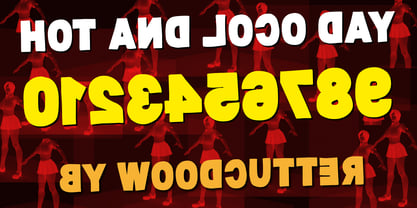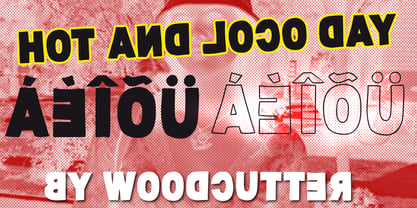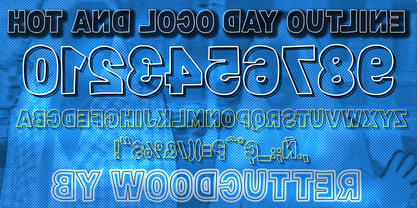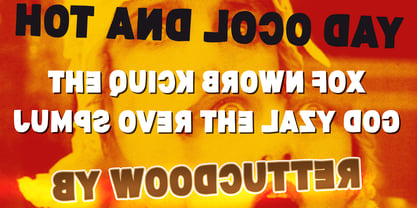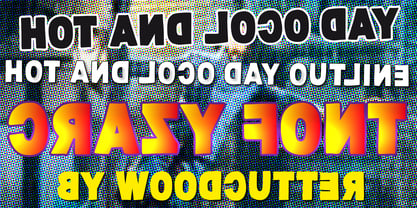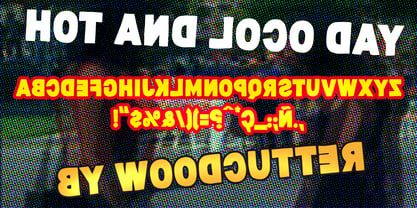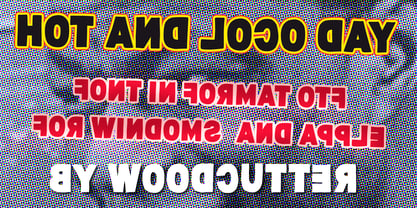
Hot And Loco Day
by Woodcutter
The Hot And Loco Day Font Family was designed by Jordi Manero and published by Woodcutter. Hot And Loco Day contains 2 styles and family package options. More about this family
"Hot And Loco Day" is an explosive, chaotic type family full of personality, designed to break every rule of order and conventional legibility. Made entirely of uppercase letters with accent support, this typeface embraces disorder as a visual language, turning imperfection into its greatest strength. Its outlines are clearly hand-drawn, featuring irregular, lively, and spontaneous strokes that convey energy, movement, and a boldly free attitude. One of the most distinctive features of "Hot And Loco Day" is the mirrored inversion of some letters, which appear reversed or flipped, creating a sense of controlled madness, visual play, and graphic provocation. This approach reinforces its rebellious and experimental character, evoking rushed handmade posters, impulsive graphics, and designs driven by instinct rather than strict rules. The family consists of two complementary styles. "Hot And Loco Day" features solid black letters with a strong visual weight and a powerful presence, making it ideal for headlines, posters, and high-impact compositions. "Hot And Loco Day Outline", on the other hand, keeps the same chaotic structure but presents the characters as hollow forms, using only line strokes without fill, adding lightness, flexibility, and a more graphic, dynamic feel. This type family is perfect for creative projects, alternative branding, experimental posters, festivals, music artwork, and any design that seeks to express spontaneity, irreverent humor, and radically free aesthetics.